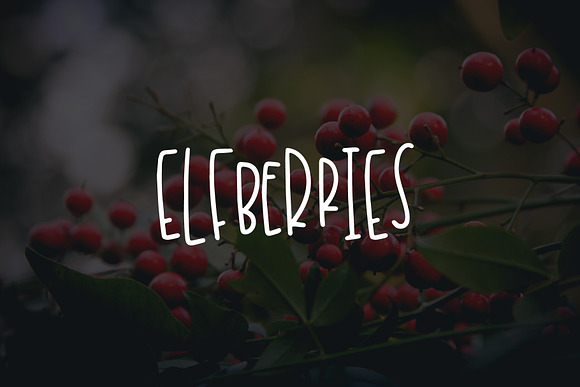
Elfberries Font
Elfberries Font is perfect for enchanting fantasy brands, whimsical children's entertainment, magical storybook publishers, mystical wellness centers, fairy tale themed venues, and enchanted forest experiences. Its magical character makes it ideal for fantasy gaming companies, mystical herb shops, enchanted garden centers, fairy tale wedding planners, magical children's workshops, and any project requiring woodland enchantment with fairy tale magic and mystical forest appeal.
This font is exciting because it captures the delicate magic and natural wonder of enchanted forests while delivering exceptional functionality for brands seeking to create truly magical experiences and fantastical storytelling. The whimsically crafted letterforms seem to sparkle with forest magic and fairy dust, evoking images of secret woodland groves, magical berries, and the timeless enchantment that lives in every fairy tale and fantasy adventure.
The Elfberries Font family typically includes Light, Regular, Medium, and Bold weights with magical alternates, enchanted ligatures, and mystical decorative elements that enhance its fairy tale personality. This comprehensive collection enables fantasy professionals to create enchanting brand systems that maintain magical authenticity while offering creative flexibility for various mystical applications requiring both woodland charm and contemporary fantasy market positioning.
Whether you're developing identity systems for fantasy entertainment companies, creating materials for magical children's events, or designing promotional content for enchanted experiences, Elfberries Font Free Download delivers the woodland magic and fairy tale charm that connects with audiences seeking enchantment, wonder, and mystical experiences. Its magical presence ensures memorable brand recognition across digital platforms and print materials, making it perfect for websites, mobile applications, and fantasy campaigns that celebrate woodland enchantment, fairy tale magic, and the transformative power of believing in mystical possibilities with contemporary charm and authentic magical appeal.